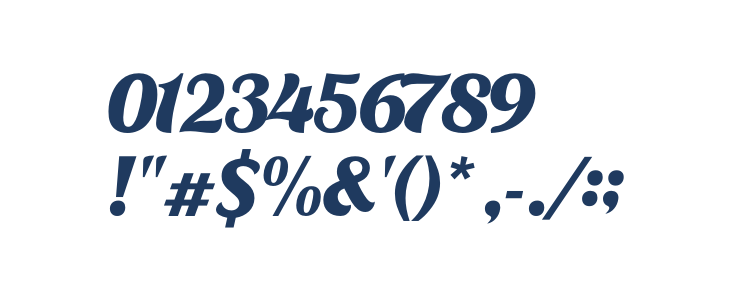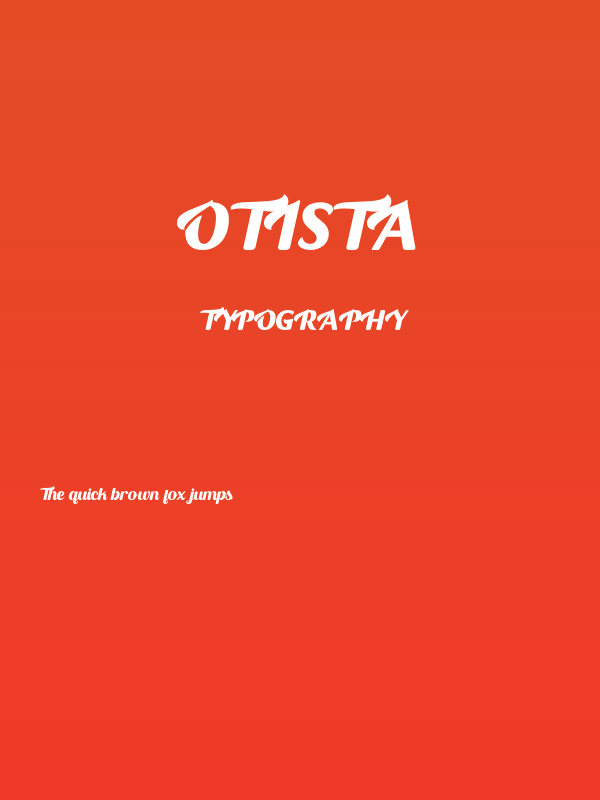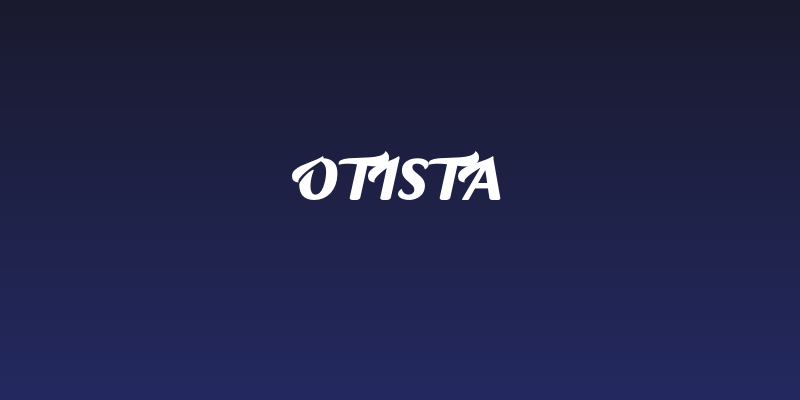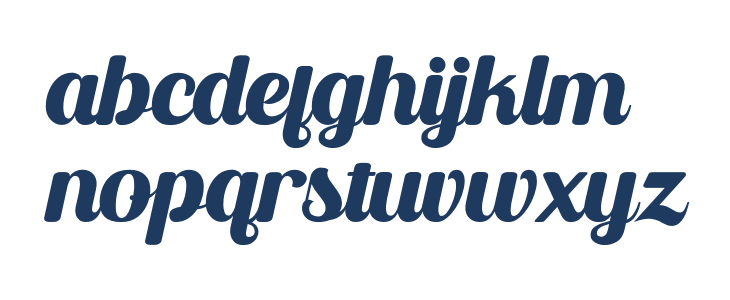
Otista Font
Otista Description
This font features a bold and dynamic script style with a strong presence. The characters are connected with smooth, flowing strokes that give it a sense of movement and elegance. The uppercase letters are slightly more angular, adding a touch of sharpness, while the lowercase letters maintain a consistent, rounded form. The numerals and special characters are designed to match the overall style, ensuring a cohesive look across all text. This font is ideal for creating eye-catching headlines and logos, with its high contrast and bold weight making it stand out in any design.
A bold, dynamic script font with flowing strokes and high contrast from Uncategorized fonts.
- Font: Otista
- Proposed Projects: Ideal for branding projects, logos, headlines, and advertising materials that require a bold and elegant script style.